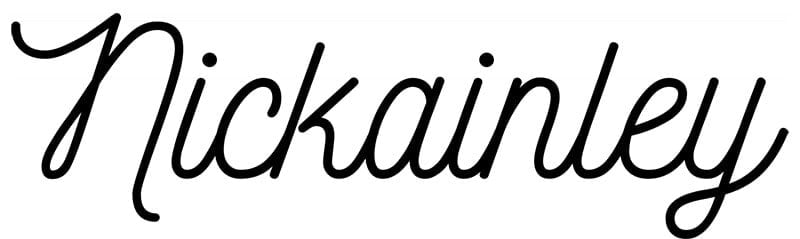
Whether it’s a marketing brochure, a business report, or a logo, you want to make sure that whatever your business does, it looks professional, polished, and on-brand. And a huge part of that? Typography.
The font you choose plays a huge role in defining who you are as a company, connecting with your customers, and creating a cohesive brand identity.
Going for a classic look with your designs? Then you’ll definitely want to explore some serif font options.
Serif fonts have embellishments at the end of their characters (think of them as like feet for each letter). These fonts are typically viewed as traditional and timeless, making them a go-to choice for more corporate businesses (like law firms or financial institutions).
But traditional doesn’t have to equal boring. Look for interesting design elements (like unexpected spacing or narrow lettering) keeps serif fonts from veering into so-traditional-it-might-as-well-be-Times-New-Roman territory.
Sans serif fonts are fonts without the embellishments—or “feet”—you’d find in a serif font (hence the “sans” in the title). And while serif fonts lend a traditional look to designs, sans serif fonts feel more modern, sleek, and sophisticated compared to others, making them a great choice for more creative businesses.
There is a lot of variation in sans serif fonts—which means there are tons of opportunities to find a font that feels uniquely on-brand to you and your business. Keep looking until you find a font that really encapsulates who you are as a brand, then use it to strengthen your branding in your designs.
Sometimes you need to add something bold and different to your designs. And on those occasions? You won’t find a better fit than graphic fonts.
Graphic fonts won’t work for every kind of designs, but when they do work, they’re a slam dunk. For example, if your brand is all rock-and-roll? Look for an edgy graphic font (like Eddie Regular, which you’ll see below) that shows your edgier side. Launching a new robotics application? A sci-fi inspired font (like Phantomonia) would be a great option.
The point is, graphic fonts tell a story, and if that story fits with your brand, they can be an awesome fit for your designs.
Script fonts are one of the most versatile font categories in the design world. Script fonts can be elegant or edgy, bold or delicate.
When choosing a script font, think of what overall look and feel you want to capture in your design and then choose a font that creates that look and feel. Are you going for elegant and timeless? Choose a more delicate font with classic embellishments (like rounded elements or a handwritten, cursive look). Going for a sleeker look? Look for something bolder and more modern.
If you want to capture a specific time and place in your designs—and play to people’s nostalgia in the process—vintage or retro fonts are an obvious choice. Fonts that are clearly designed to pay homage to a specific time, place, or experience (like the below Park Lane NF Regular, which has a very “The Great Gatsby” feel, or True Crimes, which feels like a nod to pulp crime novels from the 50s) can help you recreate that time, place, or experience in your designs.